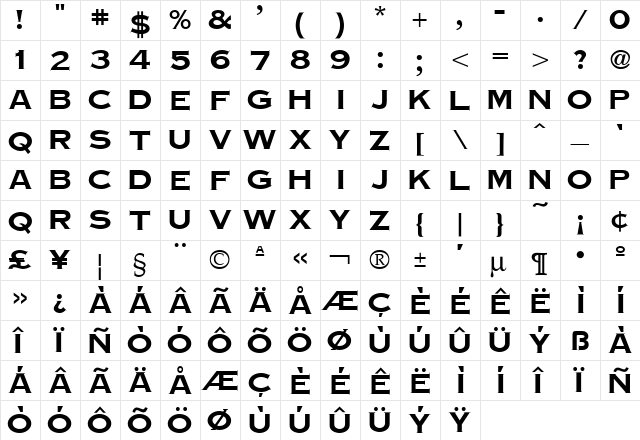
CopperPot Bold
Design Context for CopperPot Typeface
CopperPot is a composed and adaptable typeface that performs quietly and consistently across a wide range of design contexts. The heavy weight commands attention and anchors typographic hierarchies.